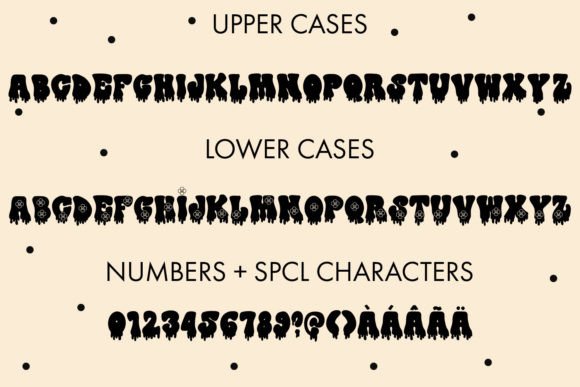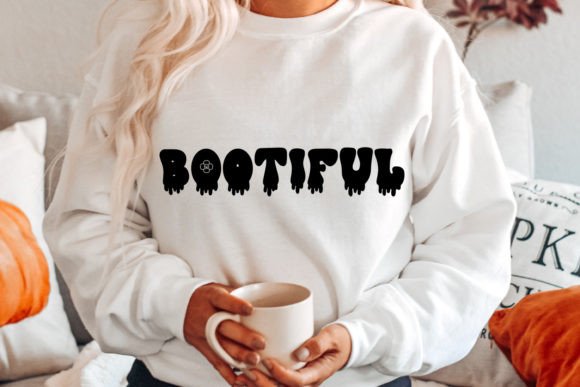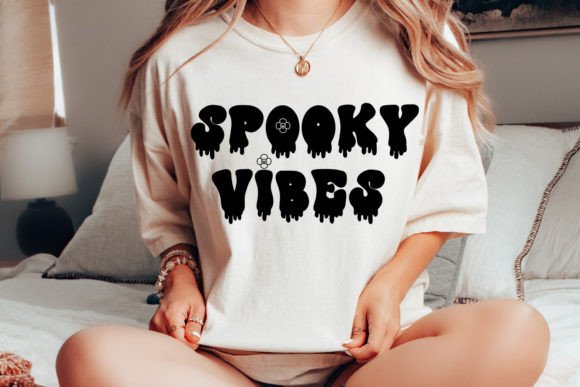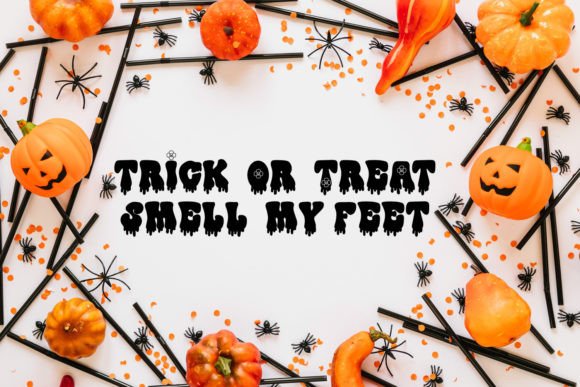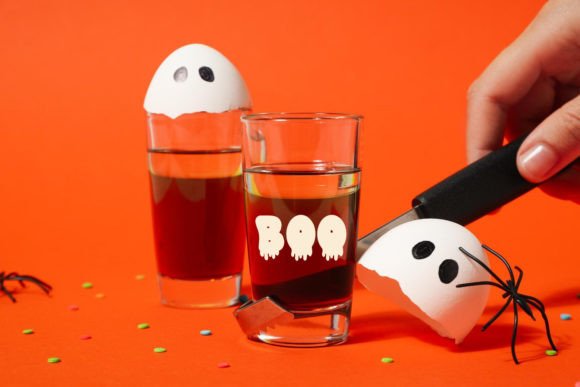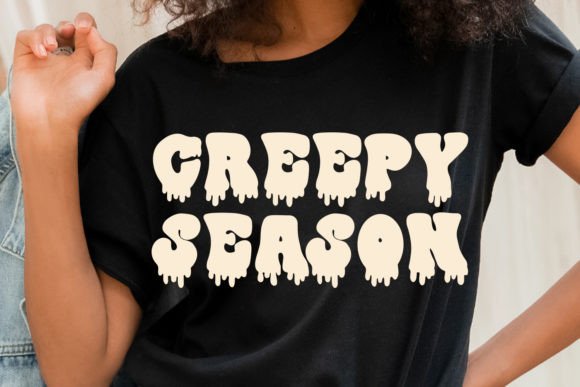
Introducing ‘Drip Drop’ – A Retro Dripping Font Exuding Vintage Vibes!
Are you a designer or crafter looking to add a touch of nostalgia to your creations? Look no further than the ‘Drip Drop’ font, a retro dripping font that’s perfect for bringing a vintage vibe to your designs. In this article, we’ll take a closer look at the ‘Drip Drop’ font, its features, and how you can use it to enhance your designs.
What is the ‘Drip Drop’ Font?
The ‘Drip Drop’ font is a unique and eye-catching typeface that’s inspired by the classic dripping effect of old-school posters and advertisements. With its bold, drippy letters, this font is sure to grab attention and add a touch of nostalgia to any design. Whether you’re creating posters, logos, or other visual materials, the ‘Drip Drop’ font is the perfect choice for adding a retro vibe.
Features of the ‘Drip Drop’ Font
The ‘Drip Drop’ font comes with a range of features that make it perfect for designers and crafters. Some of its key features include:
- Retro Dripping Effect: The font’s dripping effect gives it a unique, vintage look that’s sure to stand out.
- Bold and Eye-Catching: The font’s bold letters are perfect for grabbing attention and making a statement.
- Versatile: The ‘Drip Drop’ font can be used for a wide range of designs, from posters and logos to T-shirt designs and more.
How to Use the ‘Drip Drop’ Font
The ‘Drip Drop’ font can be used for a wide range of designs, including:
- Posters: Add a touch of nostalgia to your posters with the ‘Drip Drop’ font.
- Logos: Create eye-catching logos with the ‘Drip Drop’ font.
- T-Shirt Designs: Add a retro vibe to your T-shirt designs with the ‘Drip Drop’ font.
- Phone Cases: Create unique phone cases with the ‘Drip Drop’ font.
- Greeting Cards: Add a touch of nostalgia to your greeting cards with the ‘Drip Drop’ font.
- Invitations: Create eye-catching invitations with the ‘Drip Drop’ font.
- Mugs: Add a retro vibe to your mug designs with the ‘Drip Drop’ font.
Tips for Using the ‘Drip Drop’ Font
Here are some tips for getting the most out of the ‘Drip Drop’ font:
- Be Creative: Don’t be afraid to experiment and try new things with the ‘Drip Drop’ font.
- Have Fun: The ‘Drip Drop’ font is all about adding a touch of nostalgia and fun to your designs.
- Experiment with Colors: Try out different colors and color combinations to really make your designs pop.
- Pair with Other Fonts: Experiment with pairing the ‘Drip Drop’ font with other fonts to create unique and interesting combinations.
The ‘Drip Drop’ font is a unique and eye-catching typeface that’s perfect for designers and crafters looking to add a touch of nostalgia to their creations. With its bold, drippy letters and versatile design, this font is sure to grab attention and enhance your designs. So why wait? Download the ‘Drip Drop’ font today and start creating your own retro-inspired designs!
Whether you’re a seasoned designer or just starting out, the ‘Drip Drop’ font is a great addition to your font library. Its ease of use and range of features make it perfect for designers and crafters of all levels. So go ahead, get creative, and have fun with the ‘Drip Drop’ font!